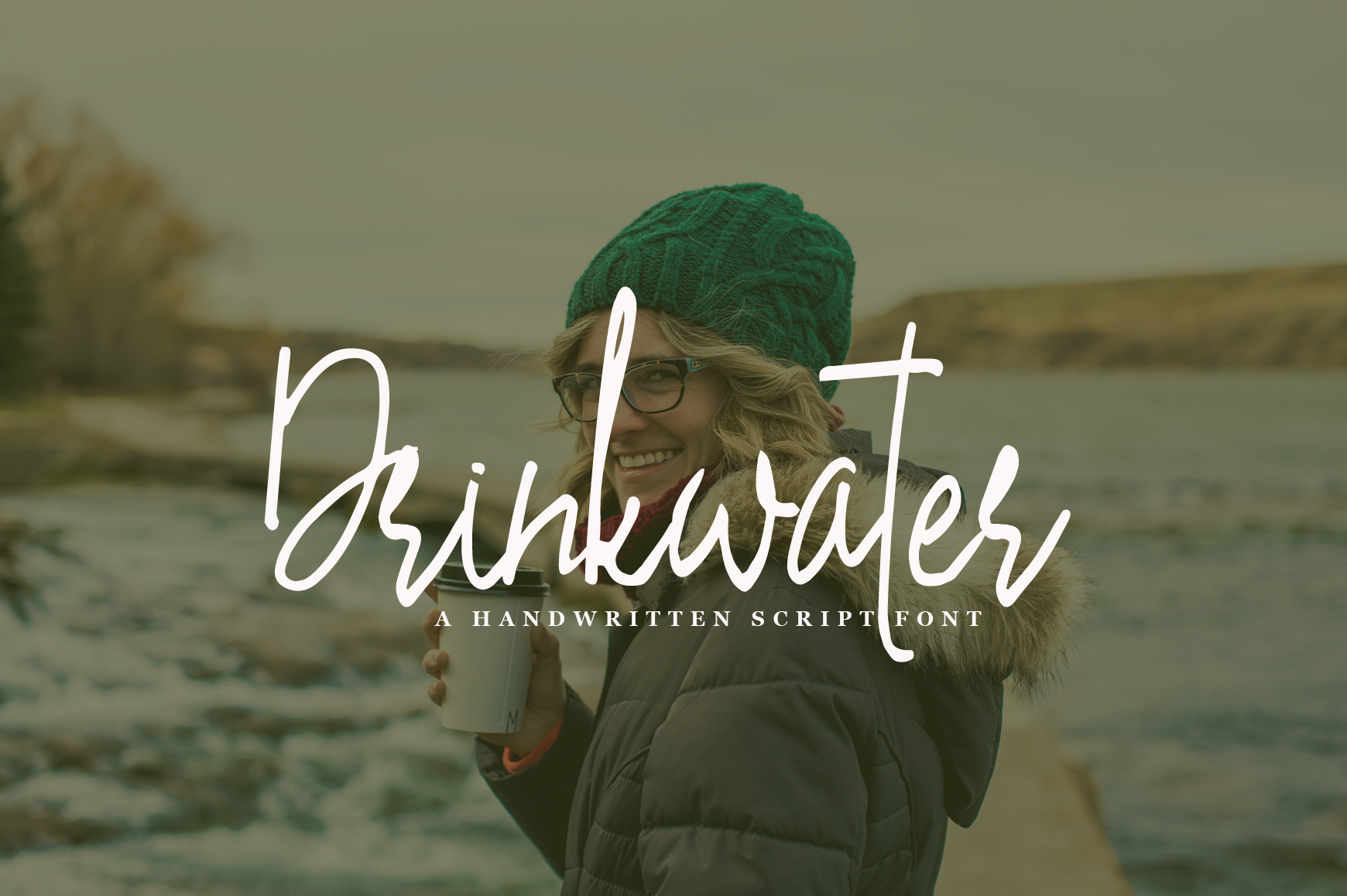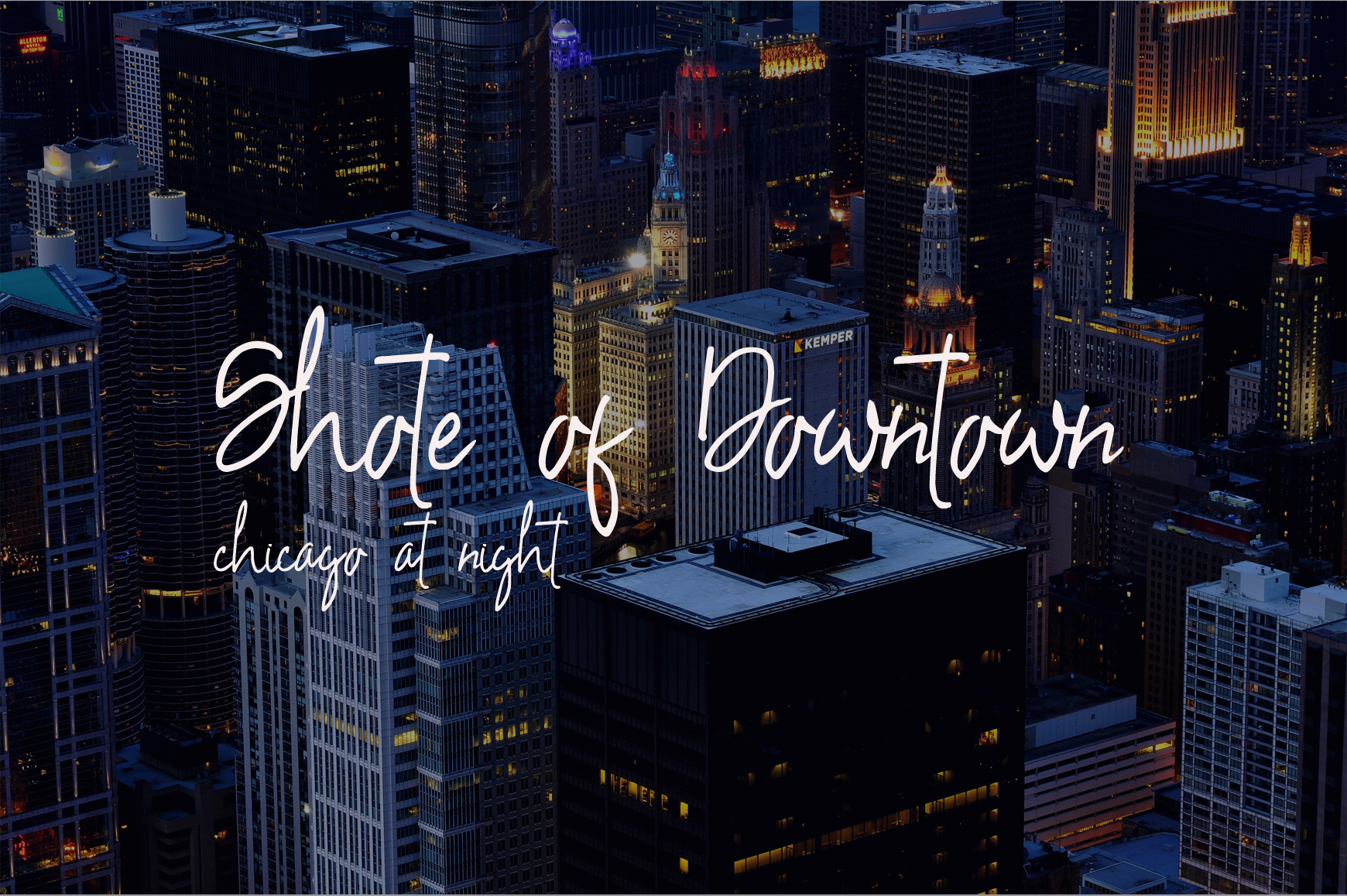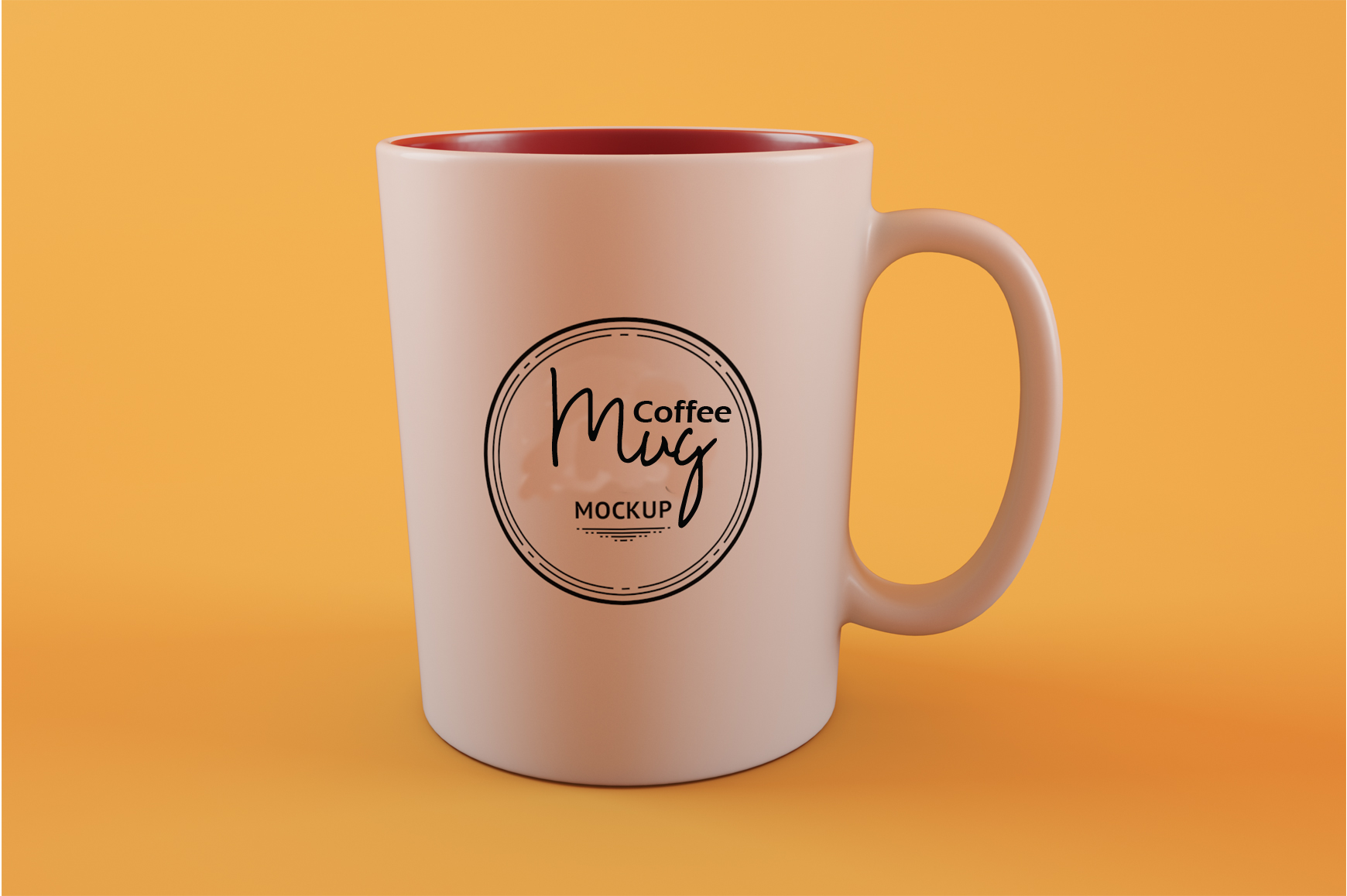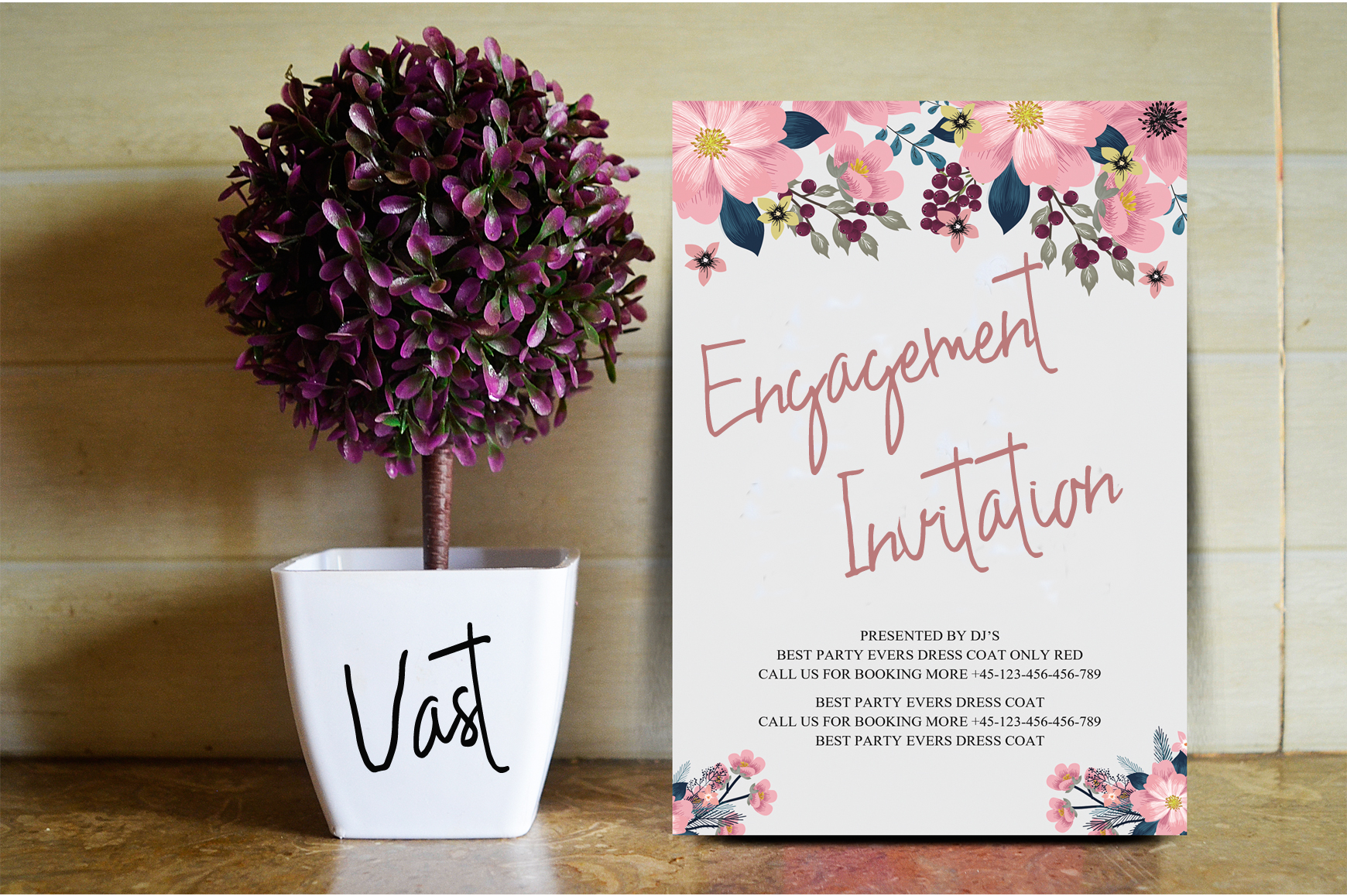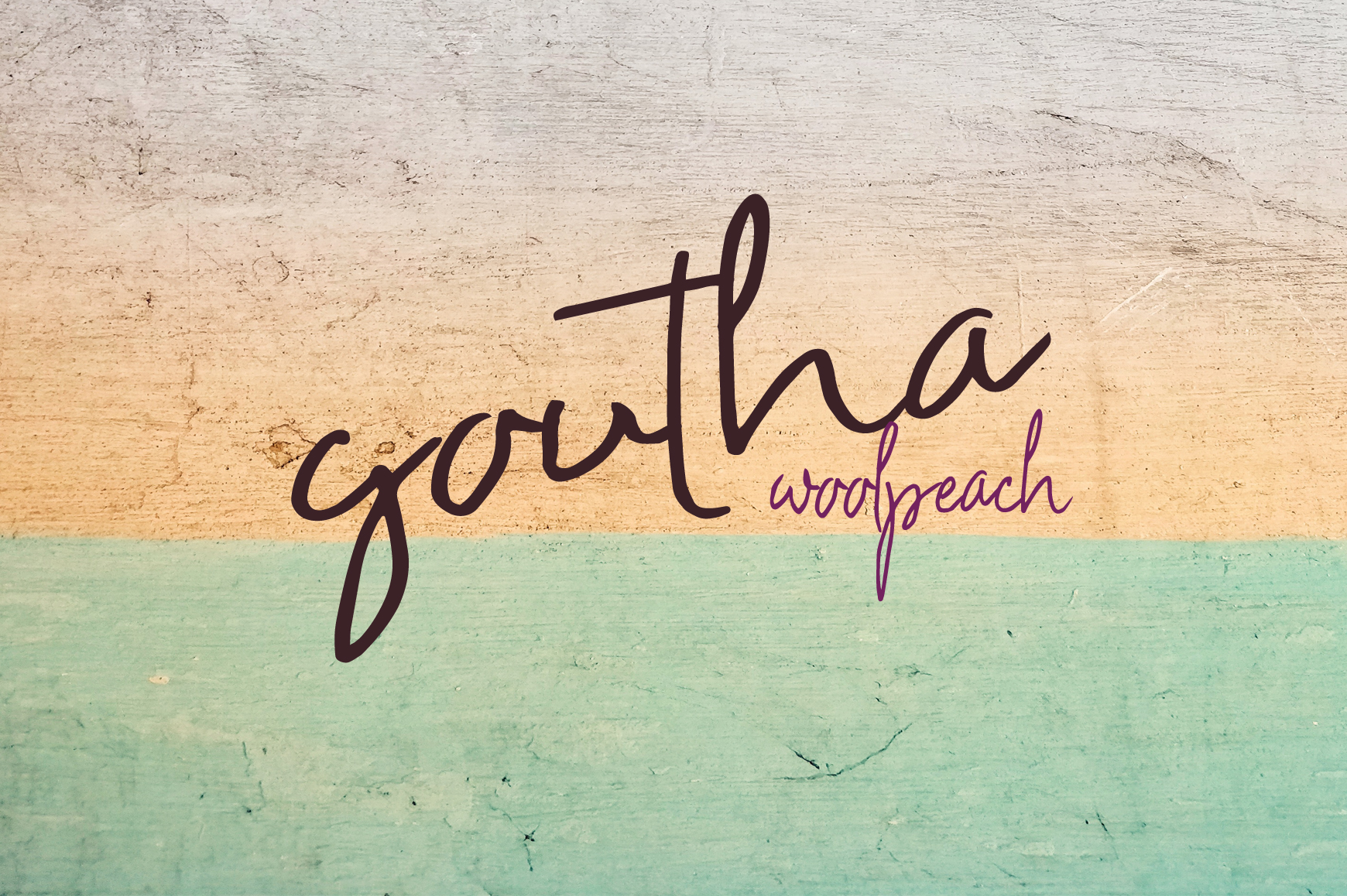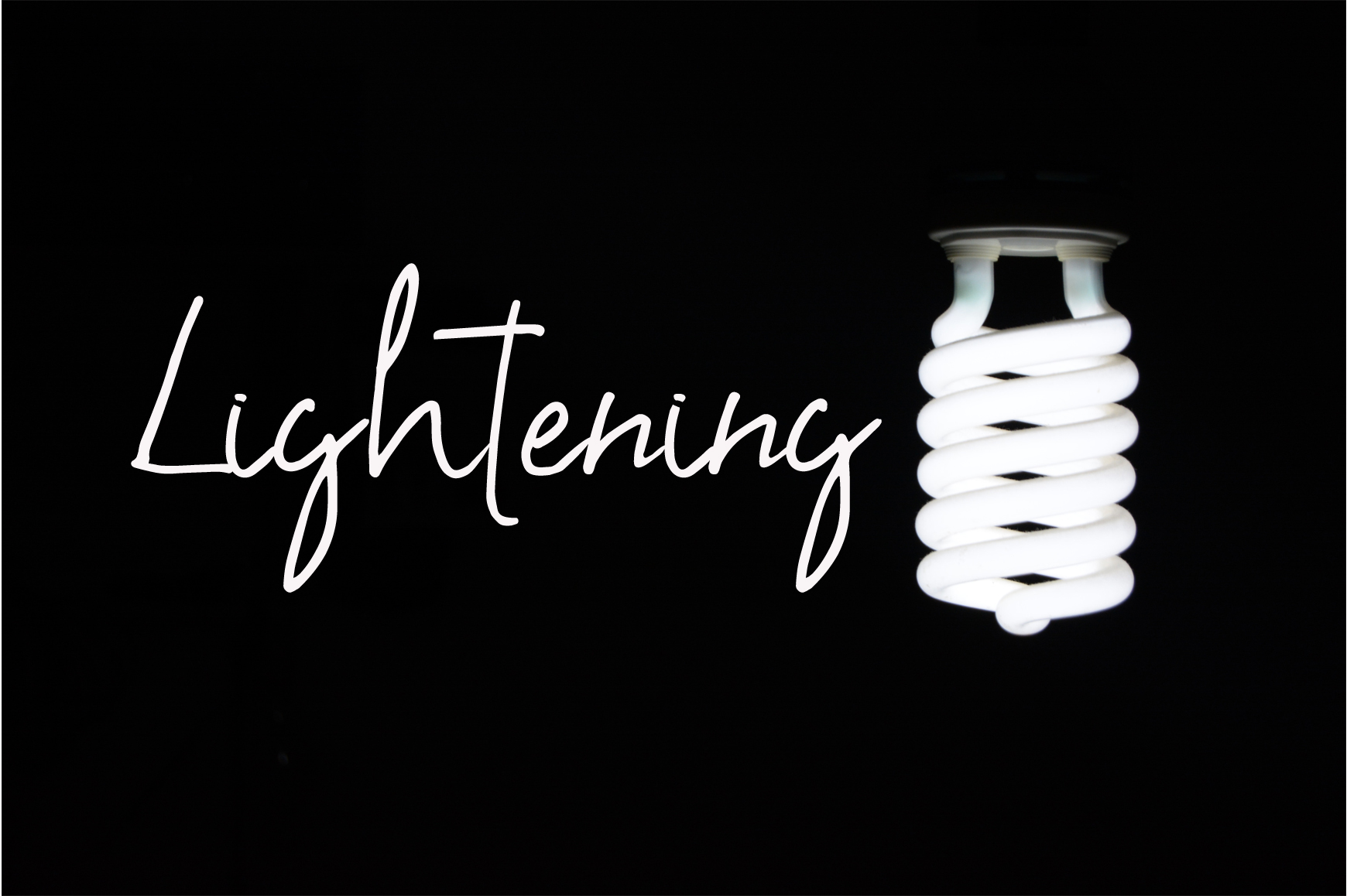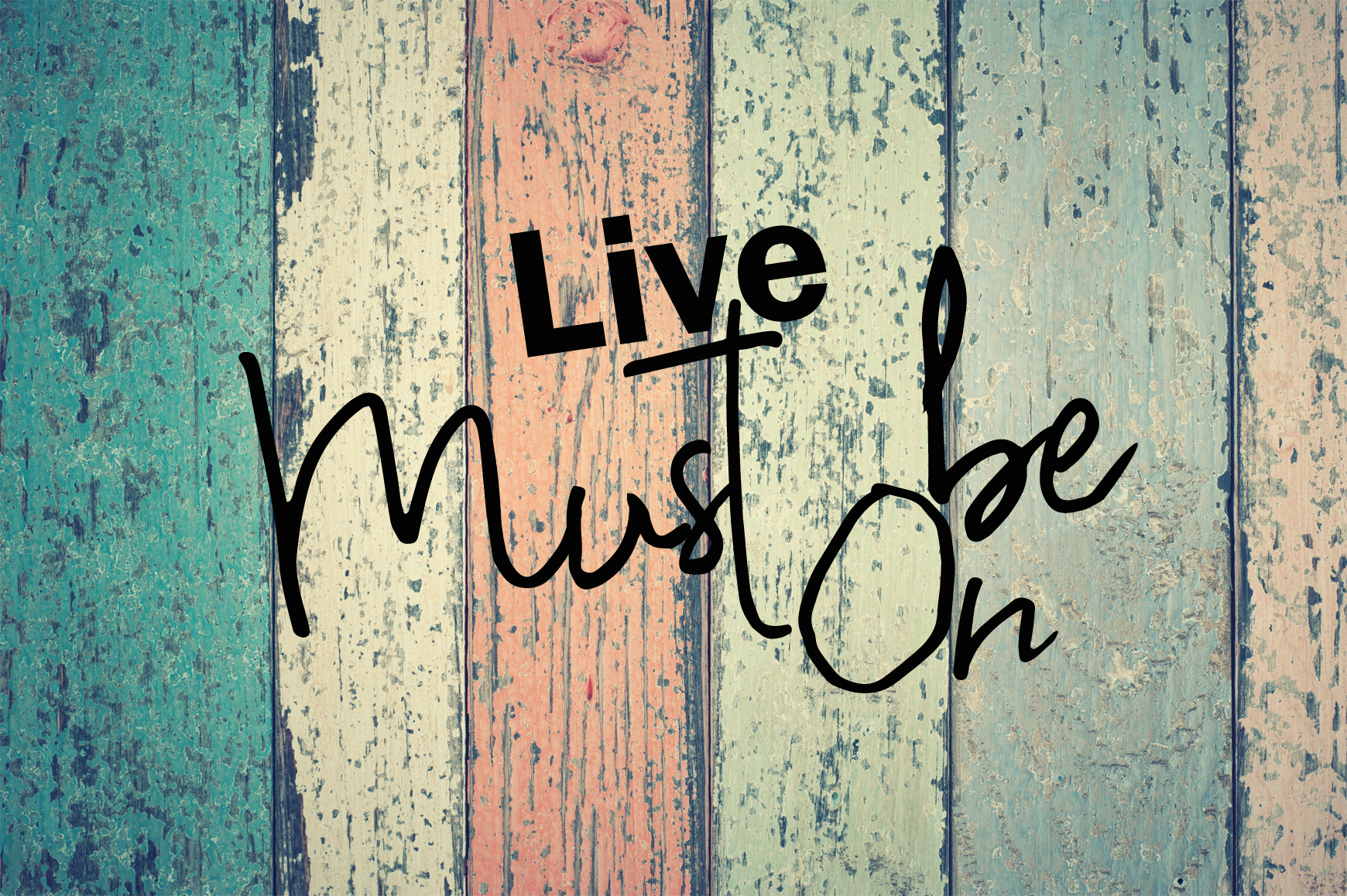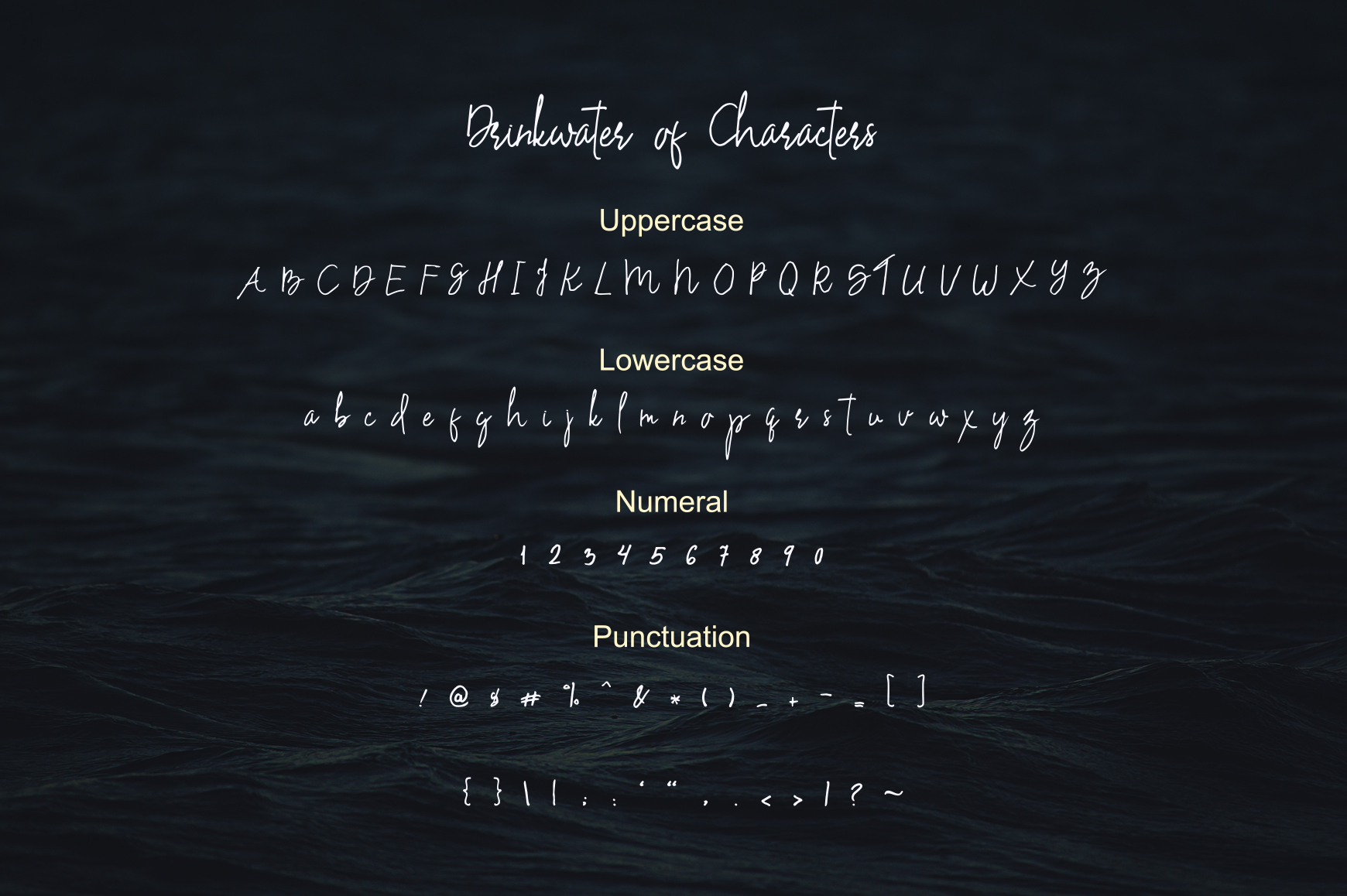
Drinkwater Font
About Drinkwater Font
Drinkwater is a beautiful and modern handwriting script typeface. Drinkwater is suitable for any project type and comes with multilingual support.